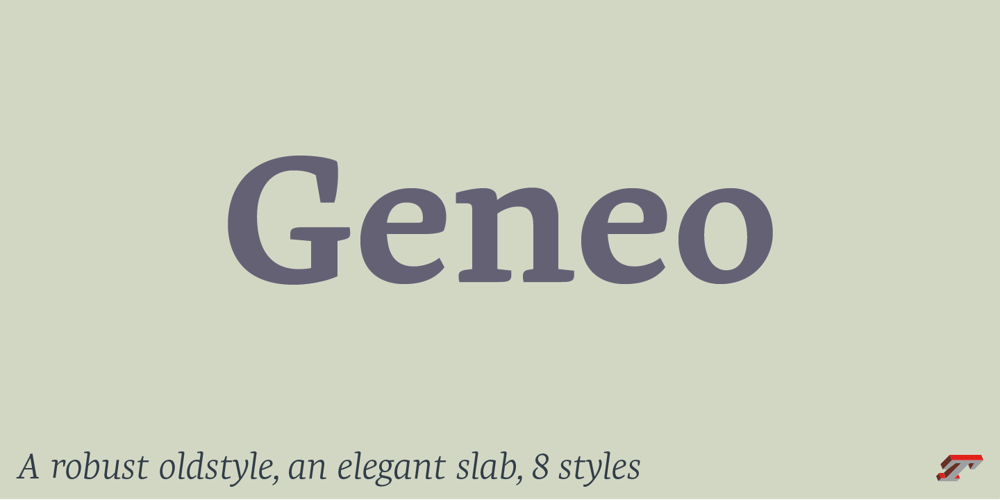
Geneo Std
Geneo Std font
Geneo Std Font Family was designed by Stéphane Elbaz and published by Typofonderie. Geneo Std contains 8 styles and family package options. A robust oldstyle, an elegant slab, 8 stylesGeneo, created by Stéphane Elbaz, is a synthesis of historic and present-day visions of typography, a slab serif constructed on an oblique axis. Its subtle contrast evokes both Renaissance elegance and the robustness of the Egyptian typefaces that were in vogue during the 19th century. Geneo falls halfway between the classic styles of Garamond and Transitionnals, with aspects of contemporary slab serifs like Rockwell, Boton, as well a bit informal. From this blend of styles and genres, it emerges with a singular identity perfectly suited for modern illustrations of quality, savoir-faire, and culture.Geneo’s limited contrast has been carefully crafted to make the font adaptable for use as both text and headlines, as well as for small-print elements like footnotes, appendices, and captions. The variety and precision of certain weights, like Regular, allow minute adjustments of the font color in text compositions. This flexibility is especially useful for displaying on devices with high pixel densities such as the latest iPhone or iPad, on which text may appear too thin.Flexibility and sturdinessThe sturdiness of Geneo makes it a perfect choice for posters, logos, print and any project that requires finesse and sophistication. It provides alternate versions of some letters such as g and a to give you the flexibility you need for your typographic projects. Geneo pairs perfectly with contemporary typeface genre.Geneo, a new typeface designed by Stéphane ElbazTokyo TDC 2014Type Directors Club 2009